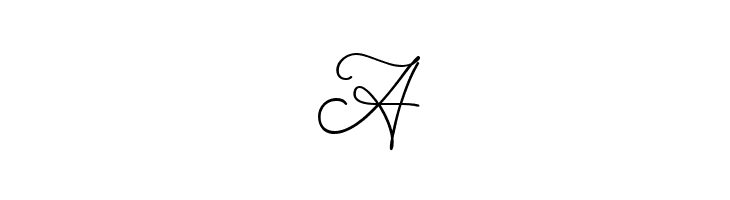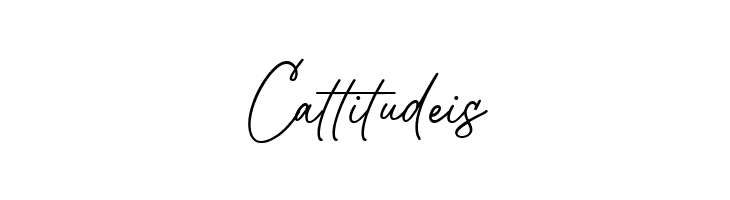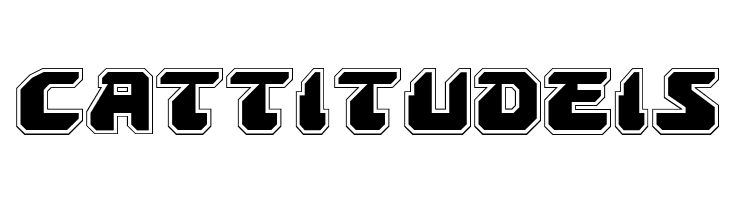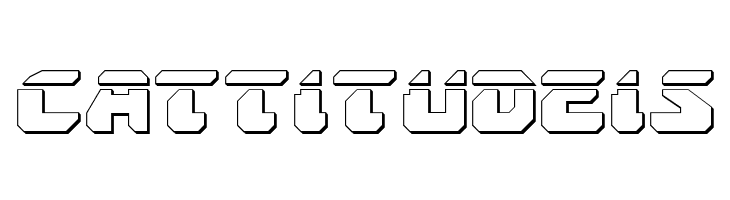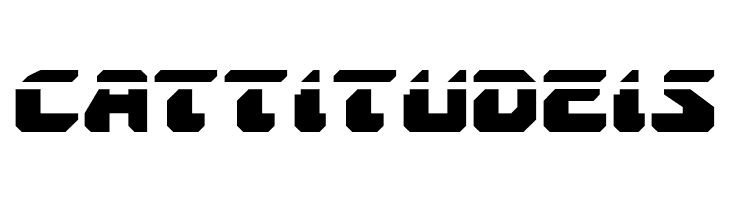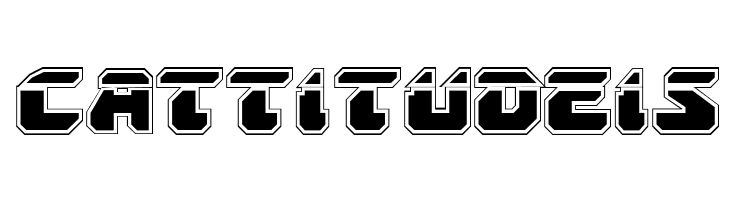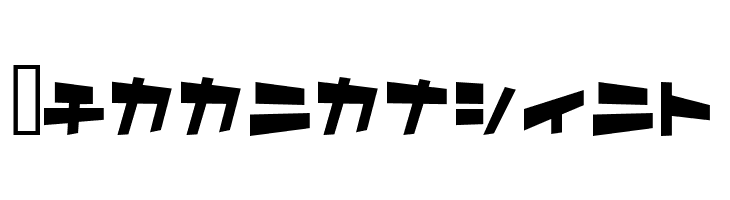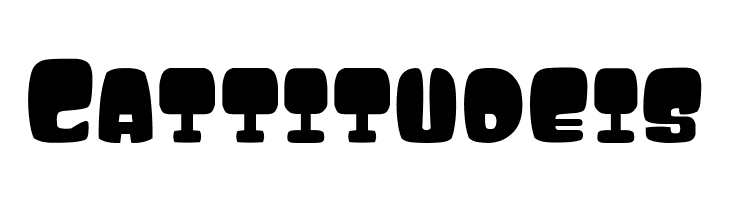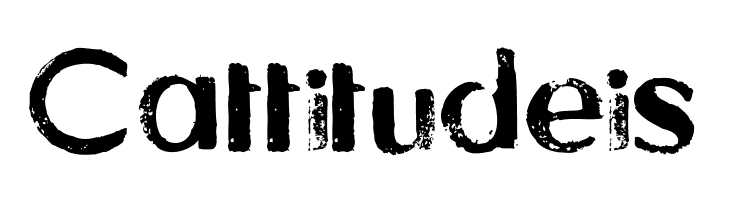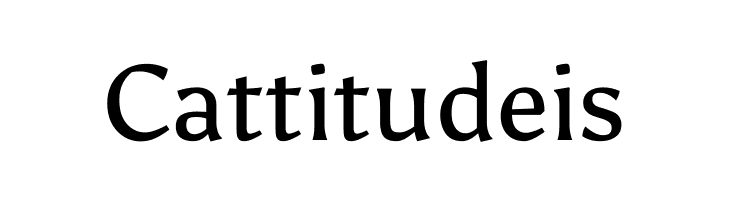
• Astropolis Academy
A bold, futuristic font with geometric and angular design elements.
• Astropolis Laser
A bold, futuristic font with geometric angles and a sci-fi aesthetic.
• Astropolis Laser 3D
A futuristic, geometric font with a 3D effect and sharp angles.
• Astropolis Laser Academy
A futuristic, bold font with geometric, blocky characters and a strong, digital aesthetic.
• Astropolis Rough
A bold, geometric font with a rough, textured finish and sharp, angular characters.
• AstroScript
• AstroT
• AstroZKtA
Bold, geometric font with thick strokes and tight spacing for a strong, modern look.
• AstroZKtB
• AstroZKtC
A bold, geometric font with a retro-modern style, ideal for impactful headlines.
• AstroZKtD
A bold, geometric font with a futuristic and strong aesthetic.
• Astrud
A bold, geometric font with tall, narrow characters and a modern aesthetic.
• Astutely Regular
An elegant and flowing script font with graceful curves and connected strokes.
• Astylooms Free Regular
A dynamic, handwritten font with fluid, cursive letterforms.
• Asul
A modern serif font with balanced proportions and versatile applications.
• Asul Regular
A modern serif font with sharp edges and balanced proportions.
• Aswell
A whimsical, decorative font with arrow-like serifs and playful character design.
• Asyiela Demo Regular
An elegant script font with flowing, interconnected letters and decorative swashes.
• Asyiela Demo Regular
A graceful and ornate script font with intricate loops and flourishes.
• Asyifa
A modern, cursive script font with elegant loops and swashes.
• Asylum
• Asylum Regular
• asymek
A modern, geometric font with clean lines and uniform structure.
• Aszami